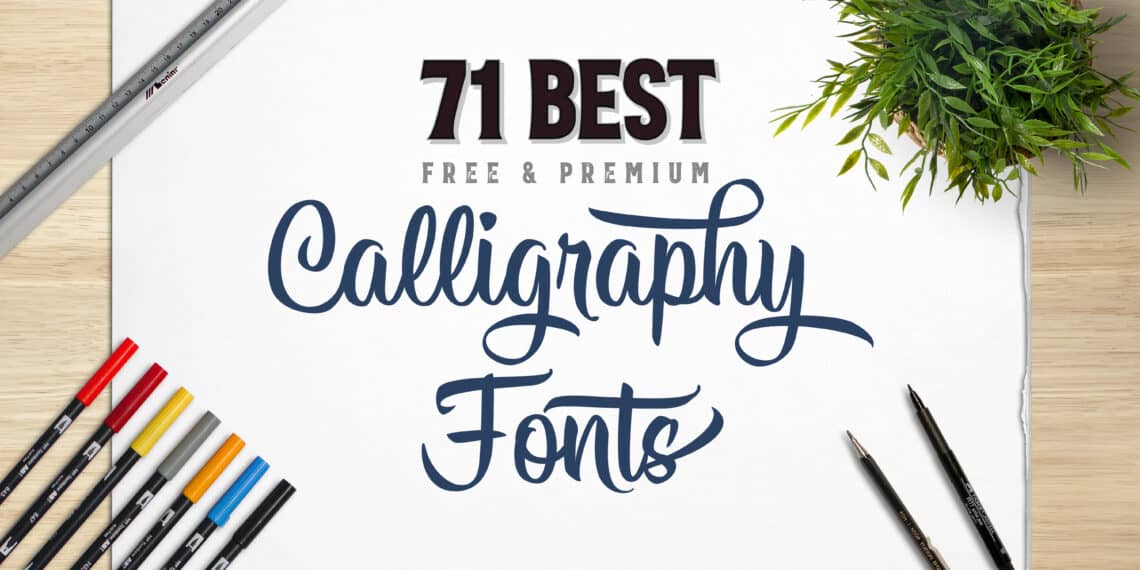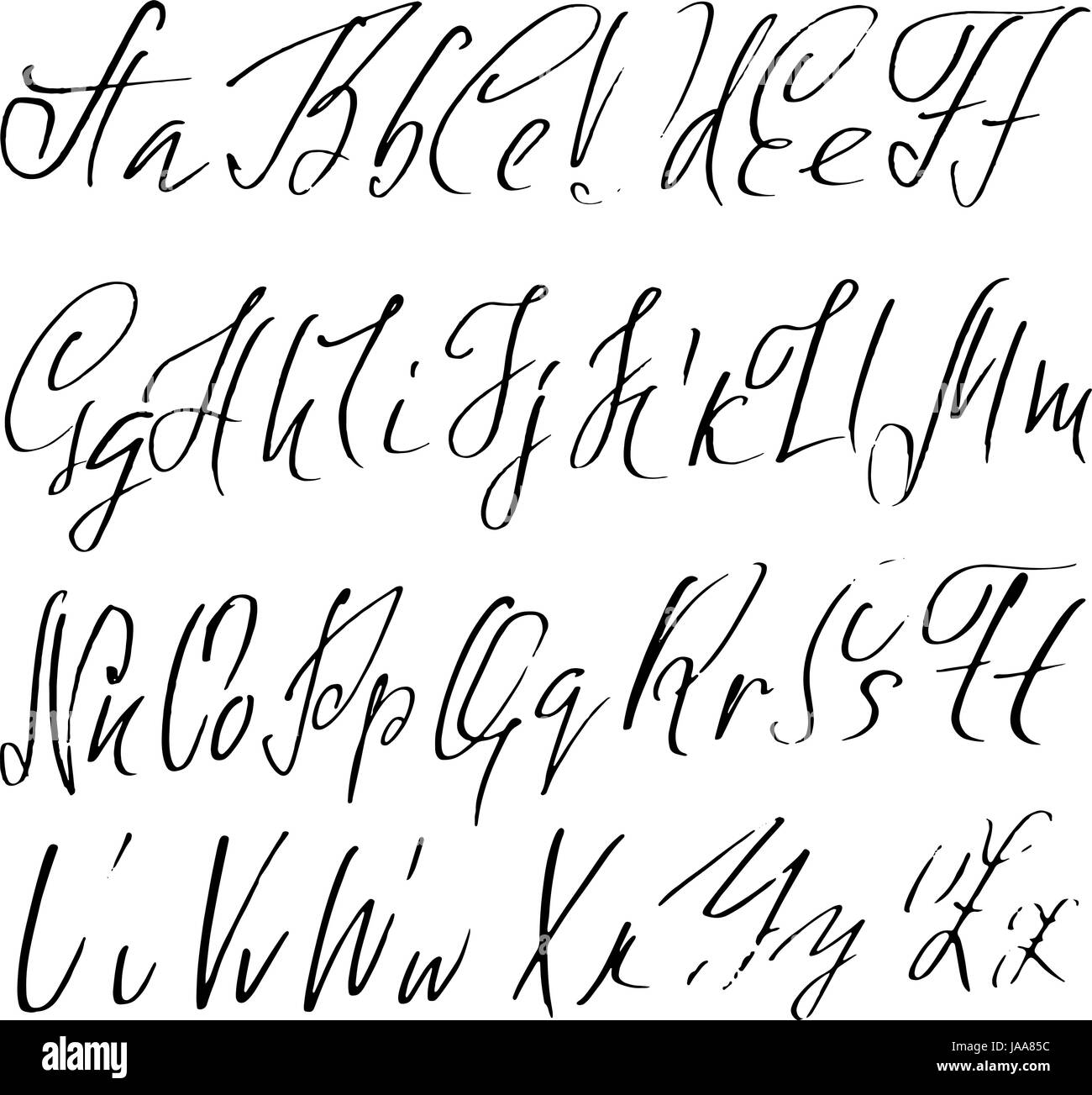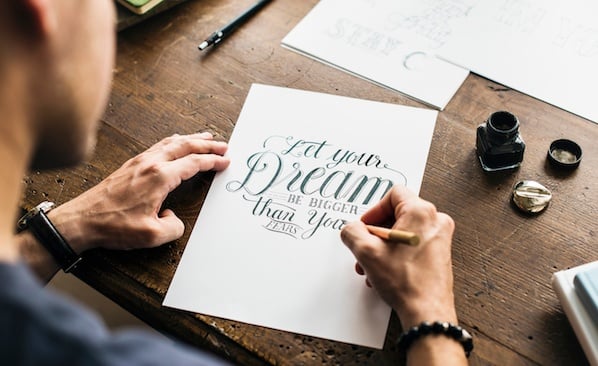
Calligraphy fonts are widely used in wedding event invitations original logo design religious art films TV etc.
Calligraphy hand lettering fonts. Every font is free to download. Apr 7 2017 - Explore Elisabeth Ferraris board Calligraphy followed by 124 people on Pinterest. Introducing NineTails a font for calligraphy script hand lettering.
Inspired by the ancient local Indonesian. Every font is free to download. Ninetails is a handwritten font it has two different styles.
This hand lettering font was designed to make it appear as though the text was quickly written by hand. Kalam comes in light regular and bold styles and has steep slants in each letter. Burgues Script created by Alejandro Paul is a typical font family of calligraphy style.
Old English Letter Alphabet Chart Font Numbers Copy And Paste Tattoo Graffiti Buchstaben Graffiti Schriftart Buchstaben Schriftarten. Saldina is multipurpose and flexible make it easy to match with another typefaces to create some beautiful project such as wedding invitation vintage design greeting card poster book cover illustration etc. See more ideas about lettering hand lettering calligraphy fonts.
The height of calligraphy was reached in the middle age where monks developed the narrow writing style called gothic allowing more words to fit on a single line as paper was expensive at the time. The free version is only in TTF format and while this font does not have very strong thick and thins characteristic of calligraphy fonts it has a lovely loose feel and it would be perfect to pair with a sans serif font for your creative projects. Our handwritten fonts are an opportunity to address personal and loving issues.
See more ideas about hand lettering fonts lettering. It is a script font that combined brush lettering with traditional hand writing. Calligraphy is an ancient writing technique using flat edged pens to create artistic lettering using thick and thin lines depending on the direction of the stroke.